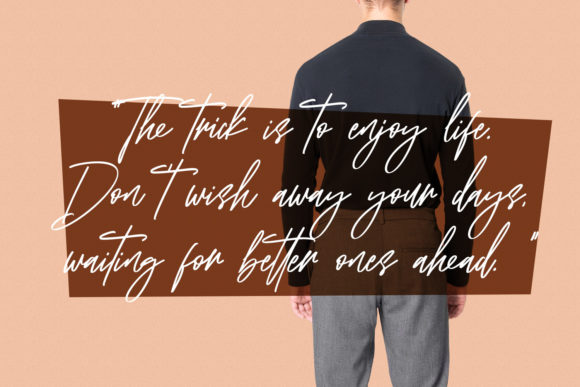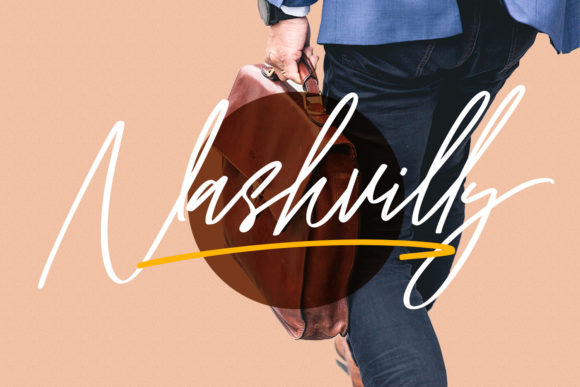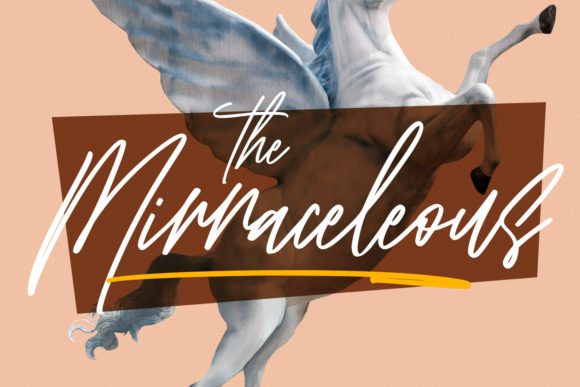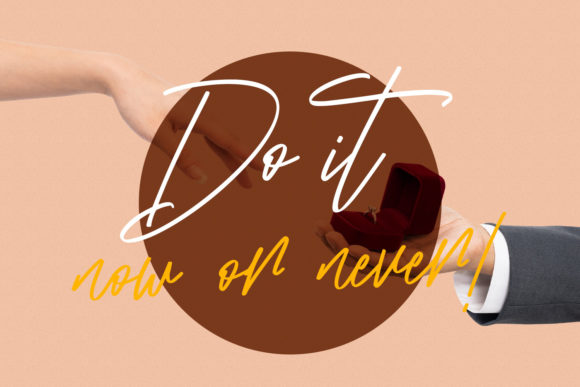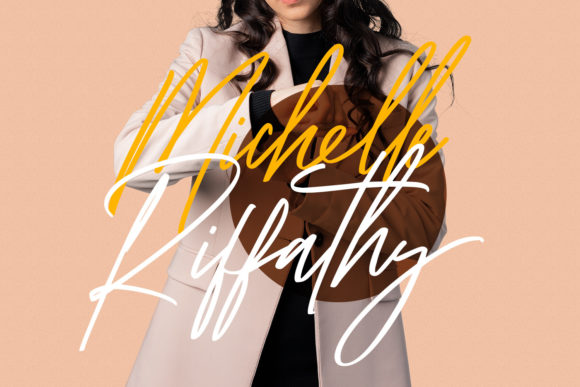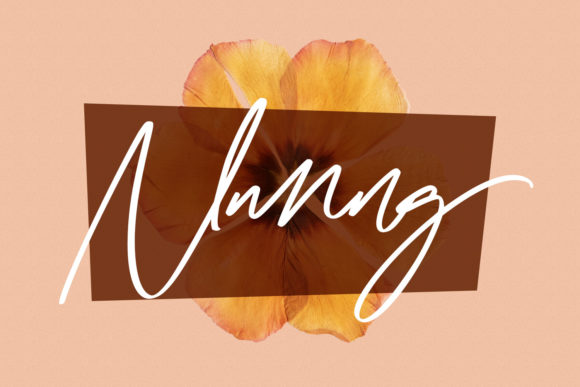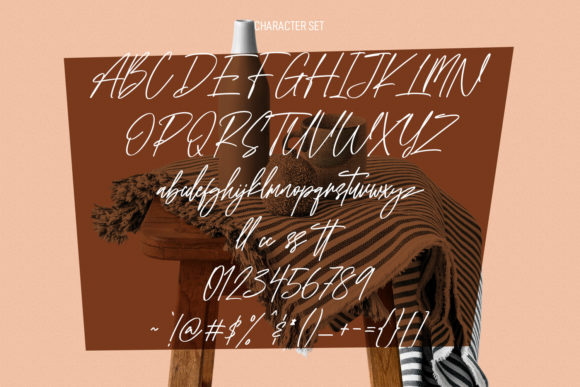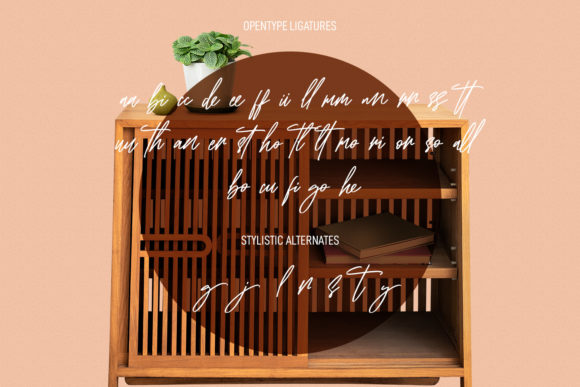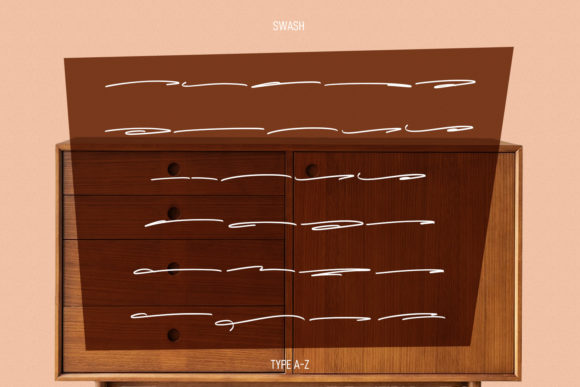
South Great Signature Script Font
About South Great Signature Script Font
is an exquisite handwritten font, masterfully designed to become a true favorite. It maintains its classy calligraphic influences while feeling contemporary and fresh. Fall in love with it and bring your projects to the highest levels!